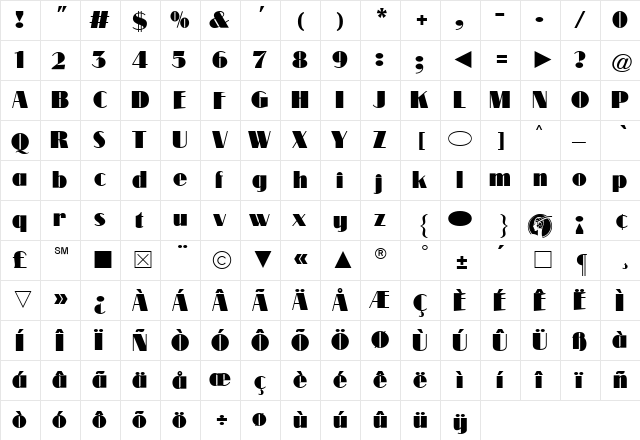
Cg Modernique Regular
Design Context for Cg Modernique Typeface
Cg Modernique is a composed and adaptable typeface that performs quietly and consistently across a wide range of design contexts.
Pro Tip: Use Cg Modernique in both headline and body roles to test its range before committing to a single application.